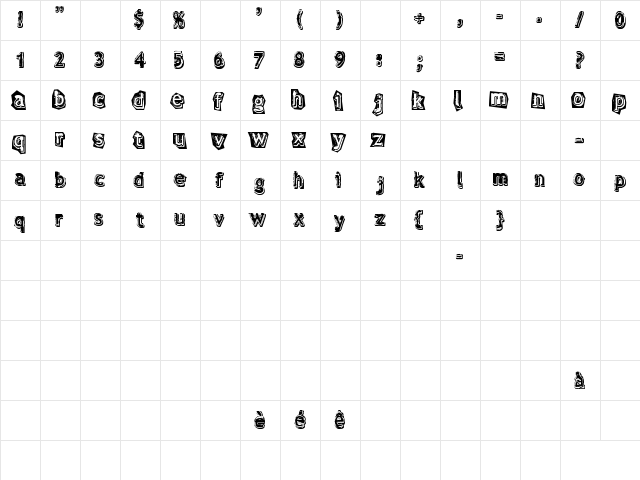
verdy ?volution Regular
| Designer | Jonathan Paquette |
Design Context for verdy ?volution Typeface
verdy ?volution is a composed and adaptable typeface that performs quietly and consistently across a wide range of design contexts.